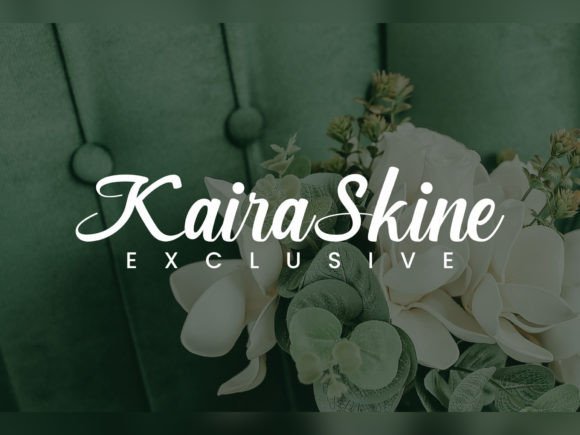
Embark on an extraordinary typographic journey with Kaira Skine, an enchantingly unique handwritten script font. Let your creativity flourish as you explore its diverse range of applications, from crafting heartfelt wedding invitations to designing eye-catching social media posts that captivate your audience. With its elegant, flowing strokes and captivating charm, Kaira Skine is a treasure trove of typographic artistry, ready to transform your designs into masterpieces.
Kaira Skine's allure lies in its versatility, effortlessly adapting to a myriad of creative projects. Envision your words dancing gracefully across wedding invitations, conjuring a sense of romance and timeless elegance. Let your imagination run wild as you create beautiful stationary art, imbuing your personal touches with a touch of sophistication. Unleash your creativity on social media, crafting captivating posts that draw your audience into a world of visual delight. Kaira Skine is your gateway to a world of boundless possibilities.
Beyond its aesthetic appeal, Kaira Skine is a font of impeccable quality, meticulously crafted to provide a seamless user experience. Its clean lines and crisp edges ensure flawless rendering, whether you're working on digital or print projects. With its extensive character set, Kaira Skine accommodates a wide range of languages, making it a truly global font. Dive into a world of typographic excellence, where every letter is a work of art, every word a symphony of elegance.
Embrace the allure of Kaira Skine, a font that speaks to the heart and soul. Its enchanting style will ignite your passion for design, propelling you to new heights of creativity. Indulge in the joy of crafting stunning designs, knowing that Kaira Skine will effortlessly elevate your work, transforming it into a visual masterpiece. As you embark on this typographic voyage, you'll discover a font that's more than just a collection of characters—it's an expression of your individuality, a reflection of your artistic soul.